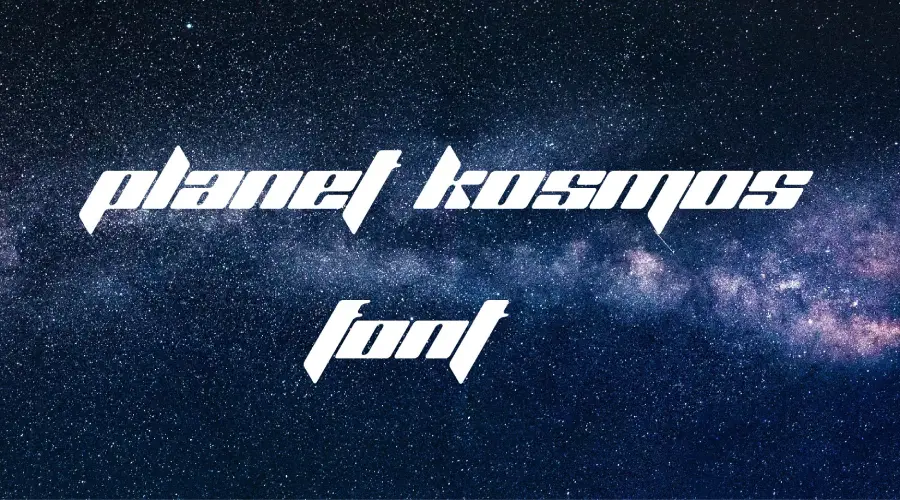
Planet Kosmos Font
Planet Kosmos is a techno sci-fi font that will take you to outer space with its futuristic design. In this guide, you will learn about the history behind the font, its features, where to use it, and how to generate it online.
History of Planet Kosmos Font
Planet Kosmos font was created by The Planet, a multimedia design studio based in Sweden. The font was first seen on DaFont.com. Over 3 million people have downloaded it since then. Danish graphic designer Mads Rydahl in 1996 designed the font. Rydahl was inspired to create the font by imagining what the brand name would look like on “a superfast electric motorcycle from a manga-like next millennium”
Space-themed movies and games of the 80s and 90s, such as Star Wars, Star Trek, and Space Invaders, also inspired the font.
About Planet Kosmos Font
Planet Kosmos font has a character set lowercase, full punctuation and numerals. It has a bold and italic style, with pointy, fat, and blocky letters. The font has a semi-rounded shape, giving it a smooth and sleek look. The font is free for personal use, but not commercial use. You need to contact the creator for a commercial license.
This font is suitable for any project that requires a techno-sci-fi vibe. You can use it for logos, posters, flyers, banners, headlines, titles, captions, labels, stickers, buttons, icons, and more. The font works well with bright colors, gradients, metallic effects, and neon lights. You can also combine it with other fonts with a similar style or contrast it with more simple fonts.